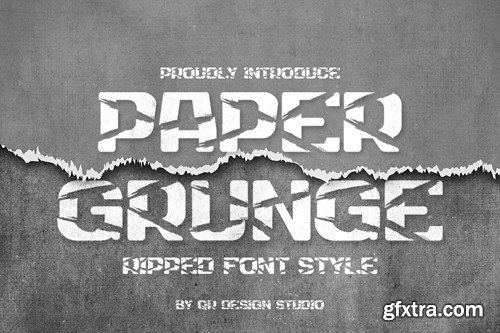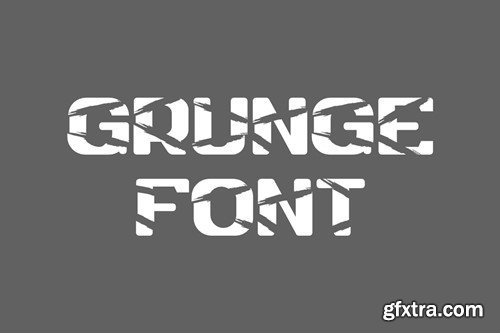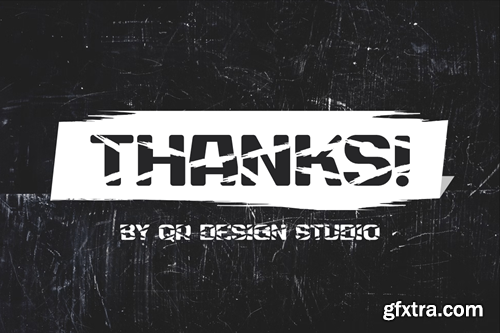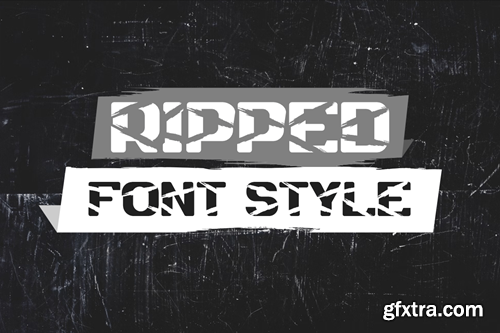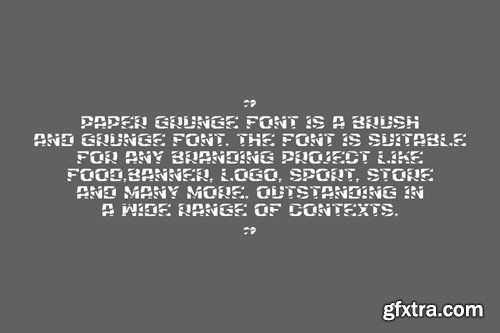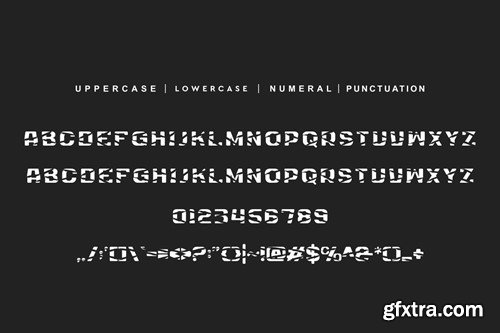
破旧纹理 - 裤角磨损及运动字体 3Y4RMQG
Paper Grunge - Ripped & Sport Font 3Y4RMQG
Paper Grunge - Ripped & Sport Font
Paper Grunge - Ripped & Sport Font is a bold and authentic display font. The font is suitable for any branding project like poster, logo, sport, and many more. Outstanding in a wide range of contexts.